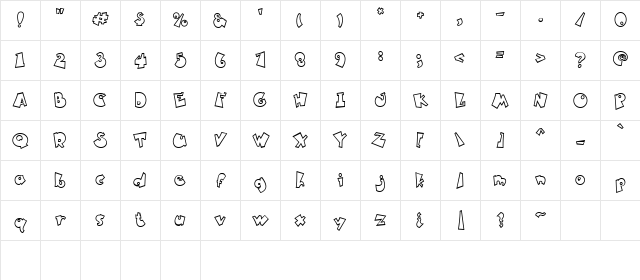
LD Madcap Regular Free Font
LD Madcap Regular
Design Context for LD Madcap
LD Madcap is a composed and adaptable typeface that performs quietly and consistently across a wide range of design contexts.
Pro Tip: Use LD Madcap in both headline and body roles to test its range before committing to a single application.